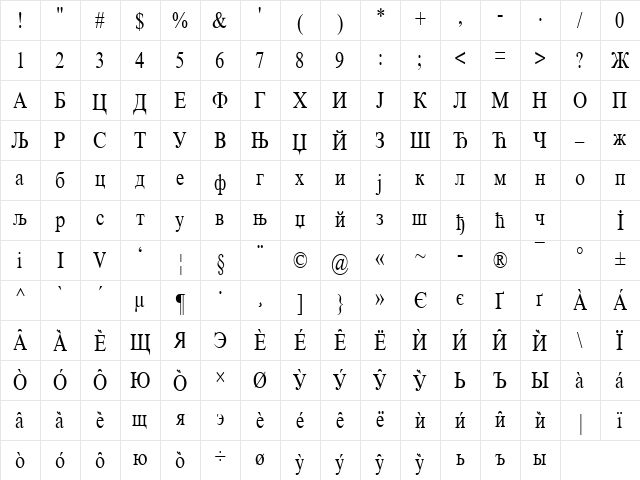
Cir Times_New_Cond Regular
Cir Times_New_Cond Family
Complete Cir Times_New_Cond Regular glyph index. Displaying only characters natively supported by Cir Times_New_Cond Regular font.
Design Context for Cir Times_New_Cond
Cir Times_New_Cond is a composed and adaptable typeface that performs quietly and consistently across a wide range of design contexts. Its narrow stance lets it pack a punch even in space-constrained designs.